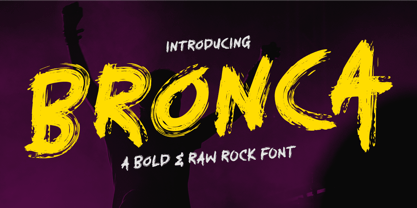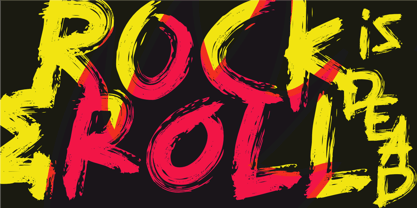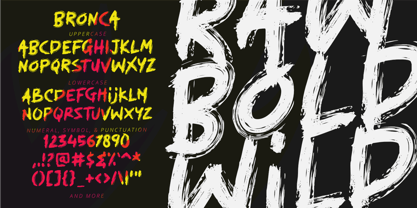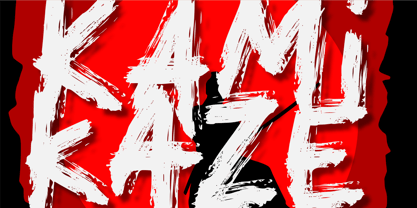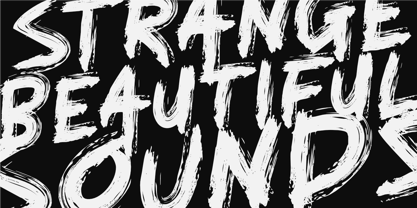
Bronca
by Epiclinez
The Bronca Font Family was designed by Aldy Sidik and published by Epiclinez. Bronca contains 1 styles.
Unleash the raw energy of Bronca, a wild, bold brush font that screams attitude and power. Designed with untamed strokes and rough textures, Bronca brings a rebellious edge perfect for logotypes, branding, movie titles, music posters, album covers, and any design that demands a loud visual punch. This handcrafted display font seamlessly blends the spirit of rock and roll with bold brushstrokes, making it ideal for grunge designs, streetwear branding, adventure posters, extreme sports graphics, and bold product packaging.
Bronca is not just a font—it’s a statement. Whether you’re designing for a high-impact headline or a raw aesthetic logo, this font delivers an unforgettable presence. Its expressive brush style and aggressive curves make it stand out in film titles, band logos, thriller book covers, and merch design.
Use Bronca when your project needs that rebellious touch with bold brush typography and wild handcrafted characters. It’s perfect for movie poster fonts, rock band typefaces, bold brush fonts, and branding fonts with attitude.